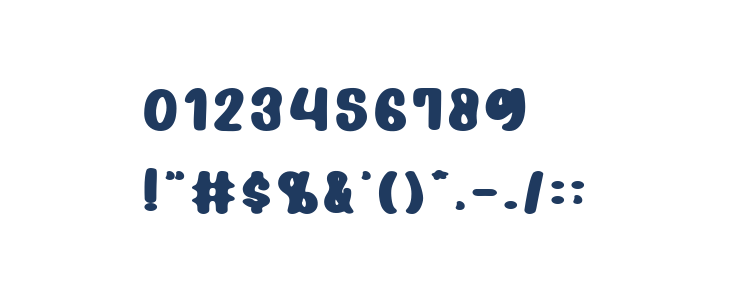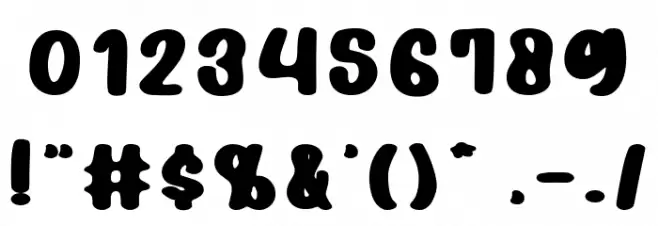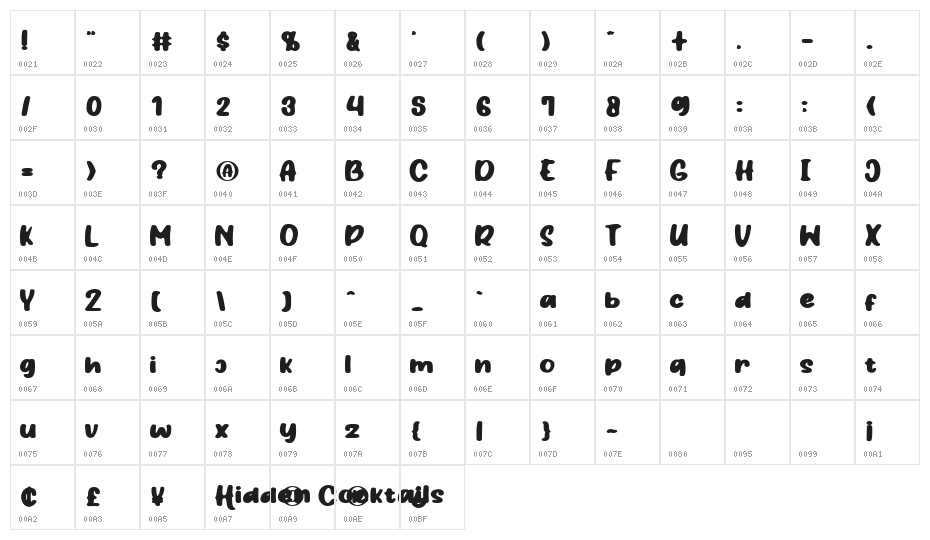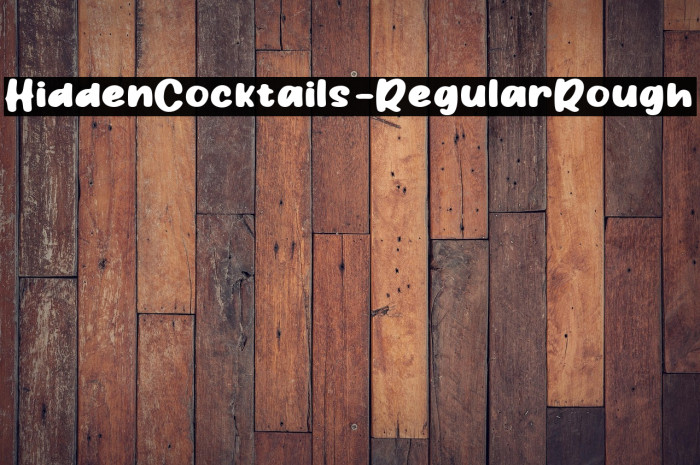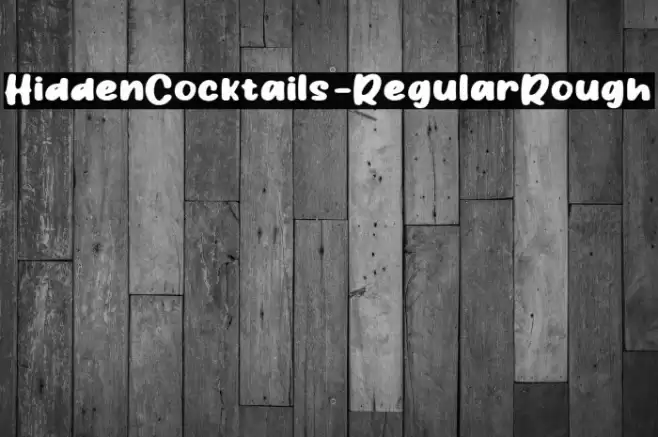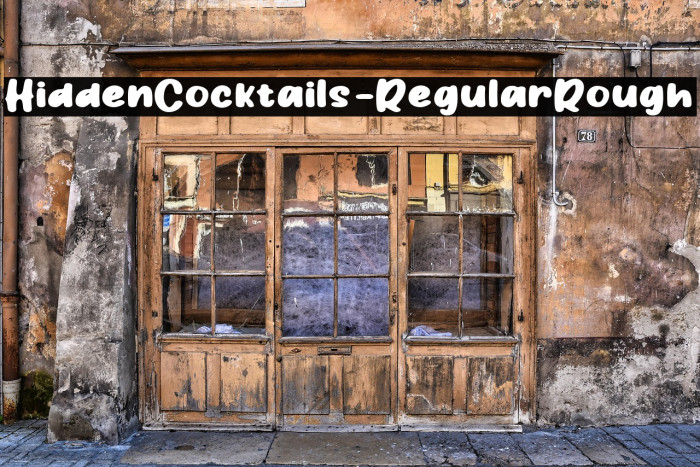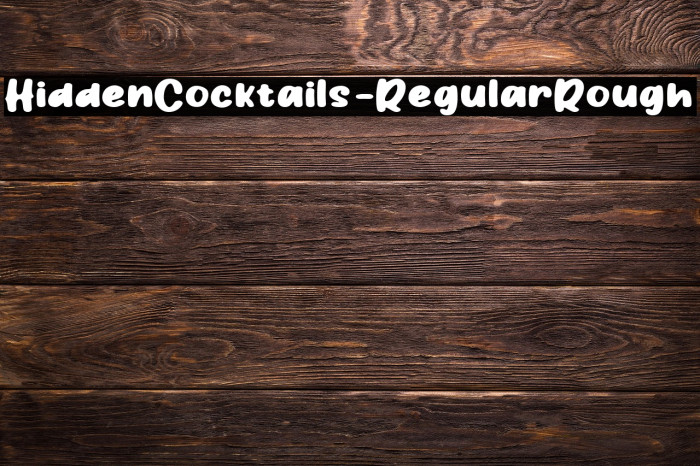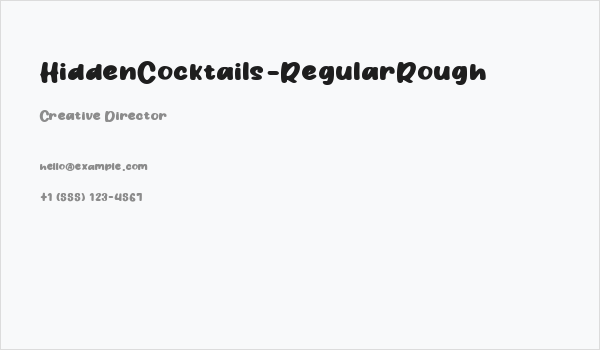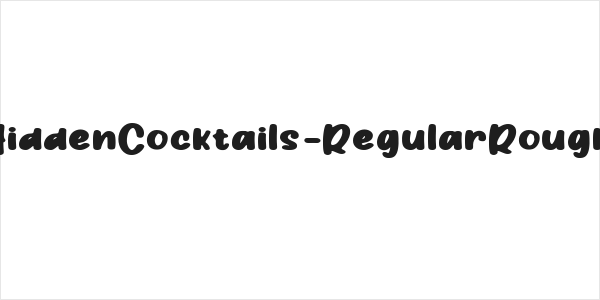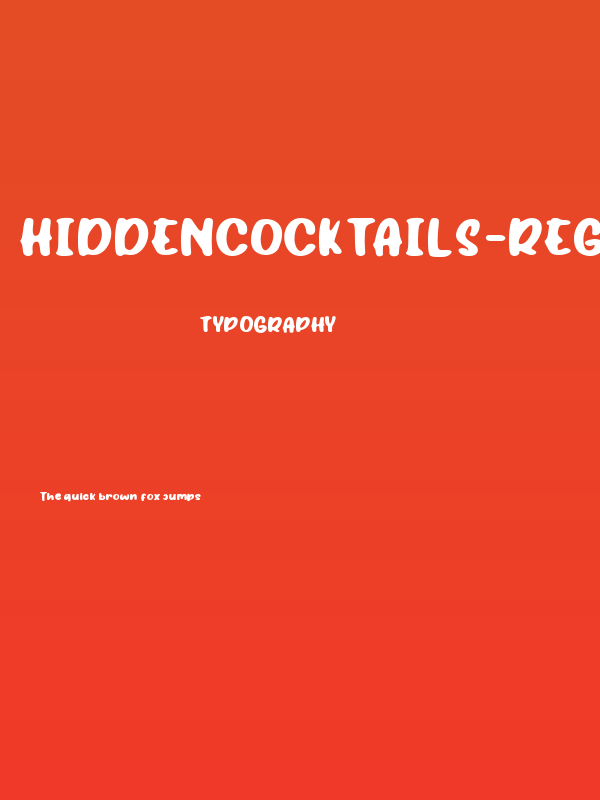
HiddenCocktails-RegularRough Font
HiddenCocktails-RegularRough Description
This font features a playful and bold design with a rough, hand-drawn appearance. The characters are rounded and slightly irregular, giving it a casual and informal feel. The uppercase and lowercase letters maintain a consistent style, with thick strokes and a bubbly aesthetic. Numbers and special characters follow the same playful theme, making the font suitable for creative and fun projects. The overall look is reminiscent of a handwritten style, yet with a modern twist that adds uniqueness and charm.